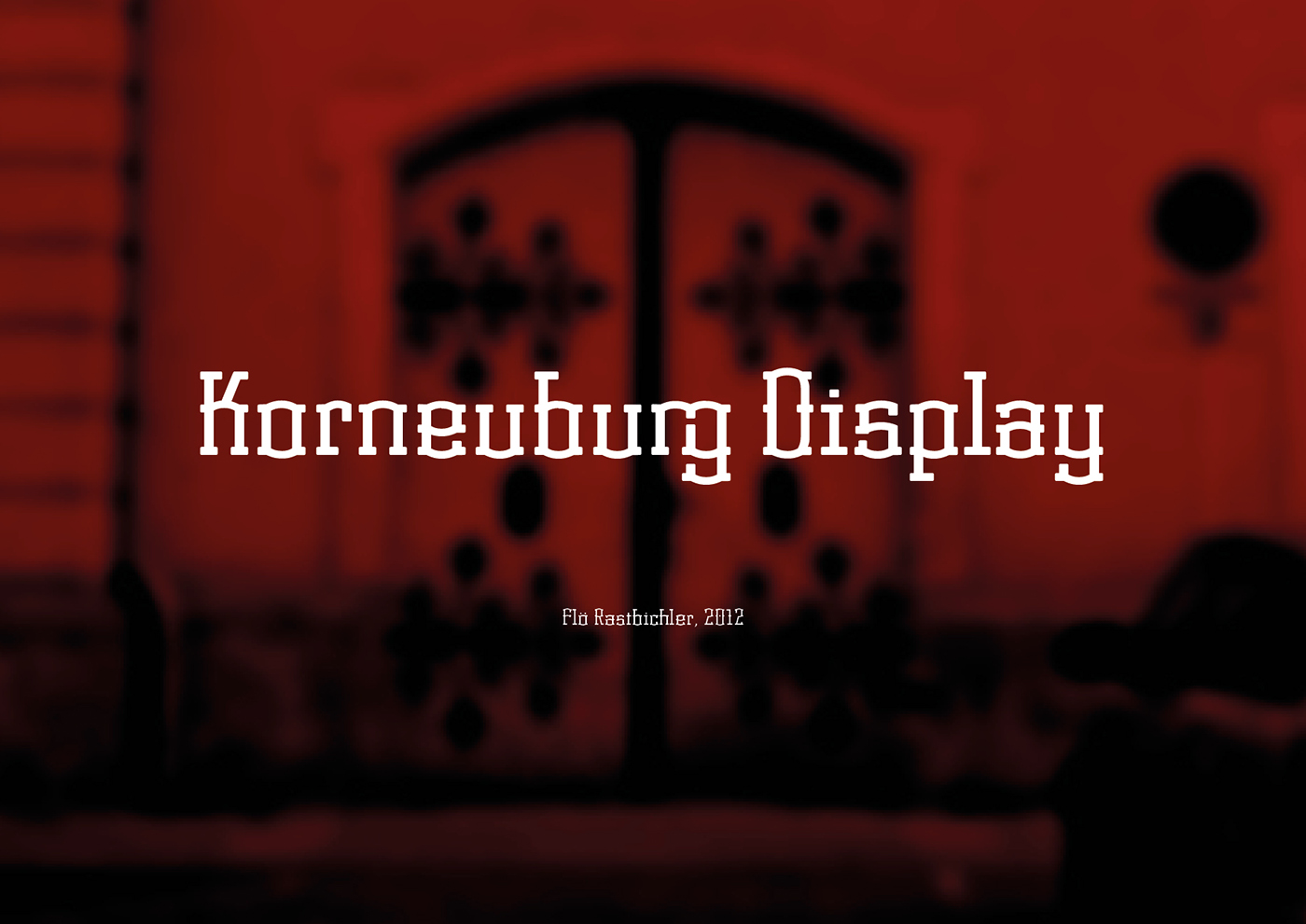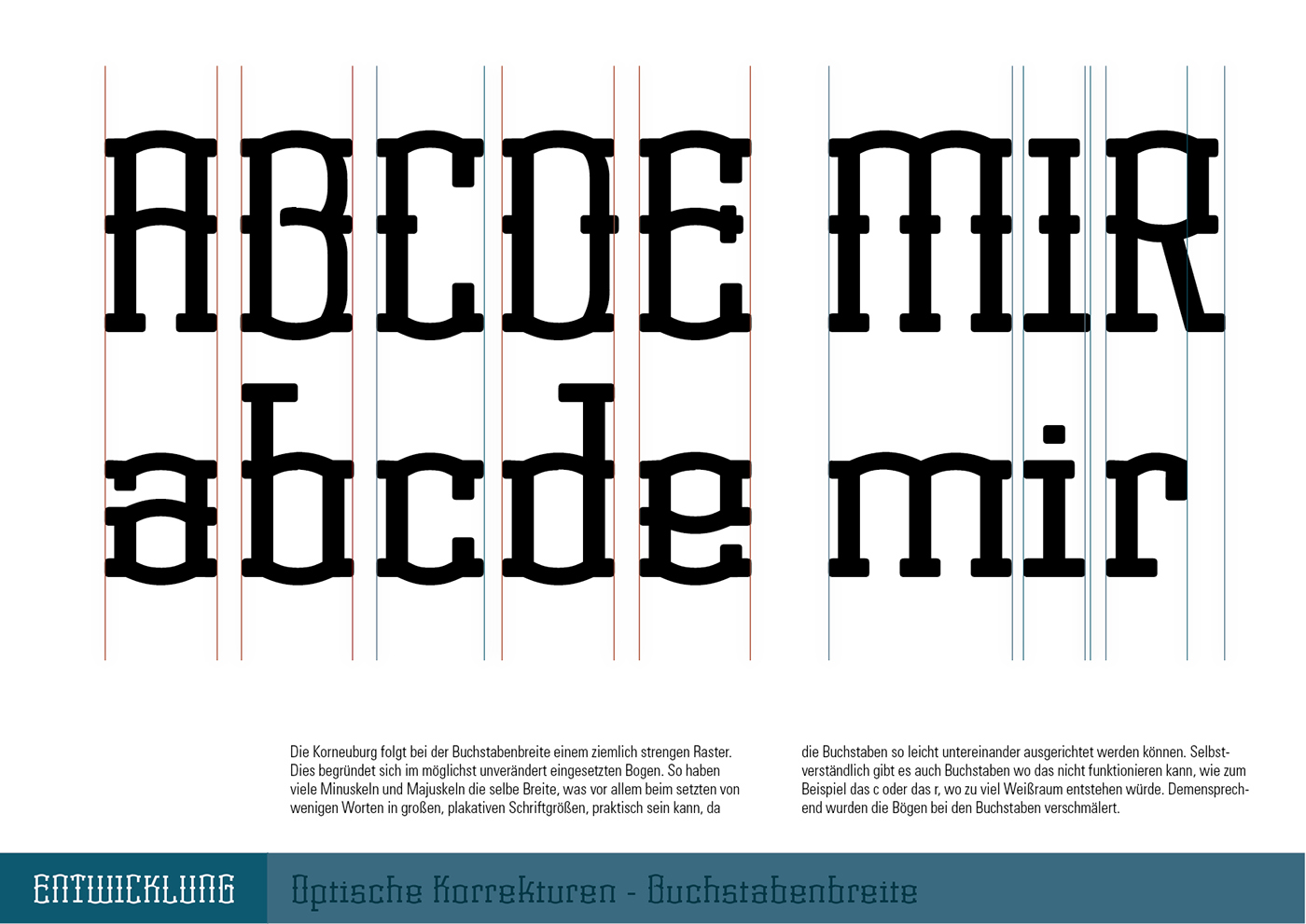
Korneuburg Display
A city-influenced display typeface | 2012
Korneuburg Display was created as a semester project.
The goal was to create a modular typeface that is inspired by a city.
Korneuburg is a neoclassicist city in Lower Austria and especially the forms of it's multiple archways were the inspiration for this typeface.